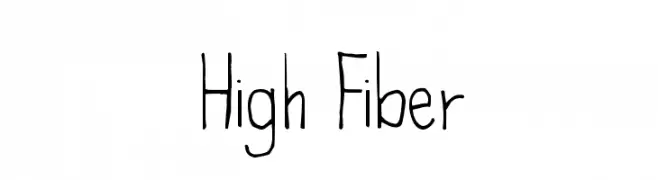
( Fonts by Cumberland Fontworks - http://www222.pair.com/sjohn/fonts.htm - S. John Ross )
A playful, handwritten font with tall, narrow letters and uniform strokes.